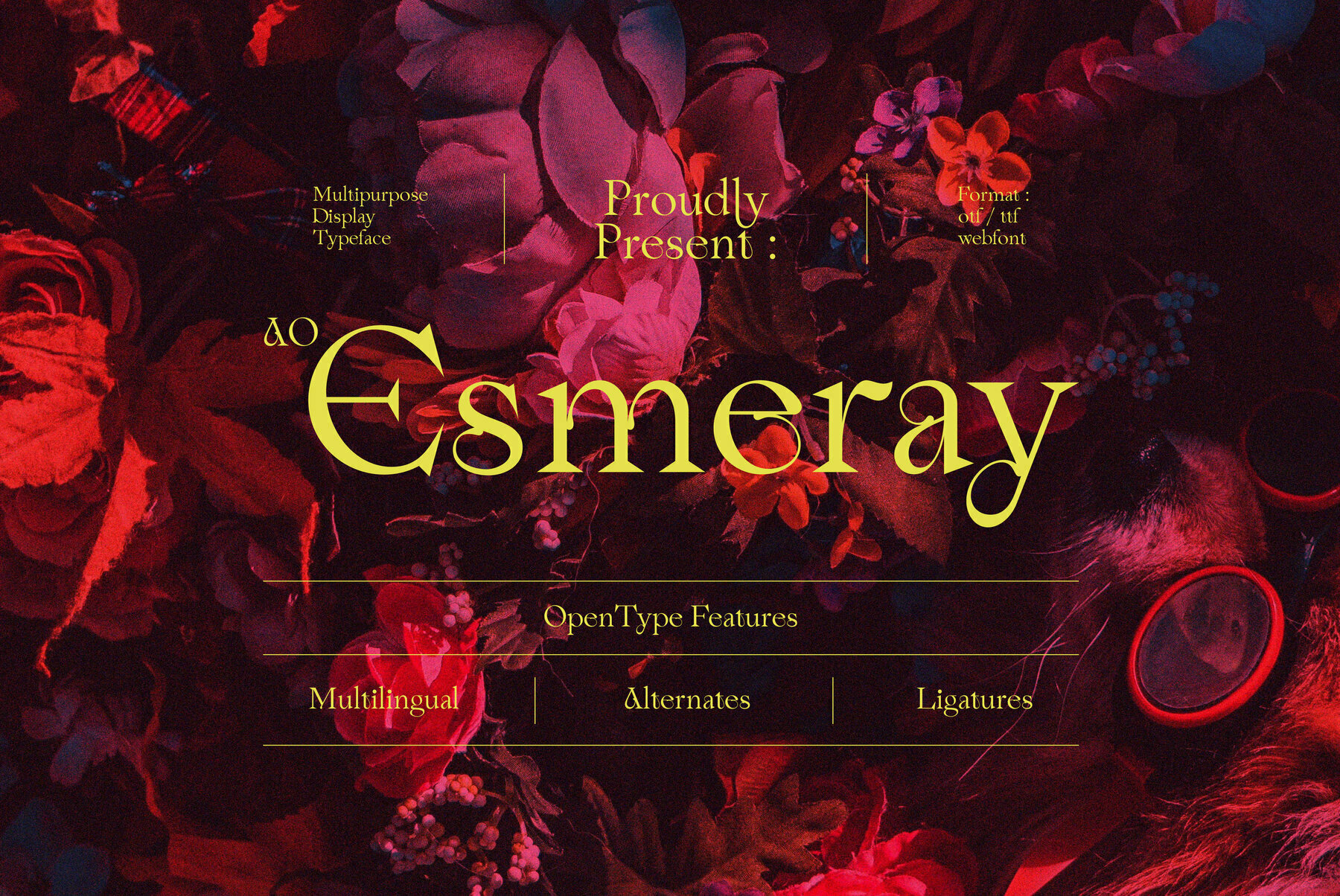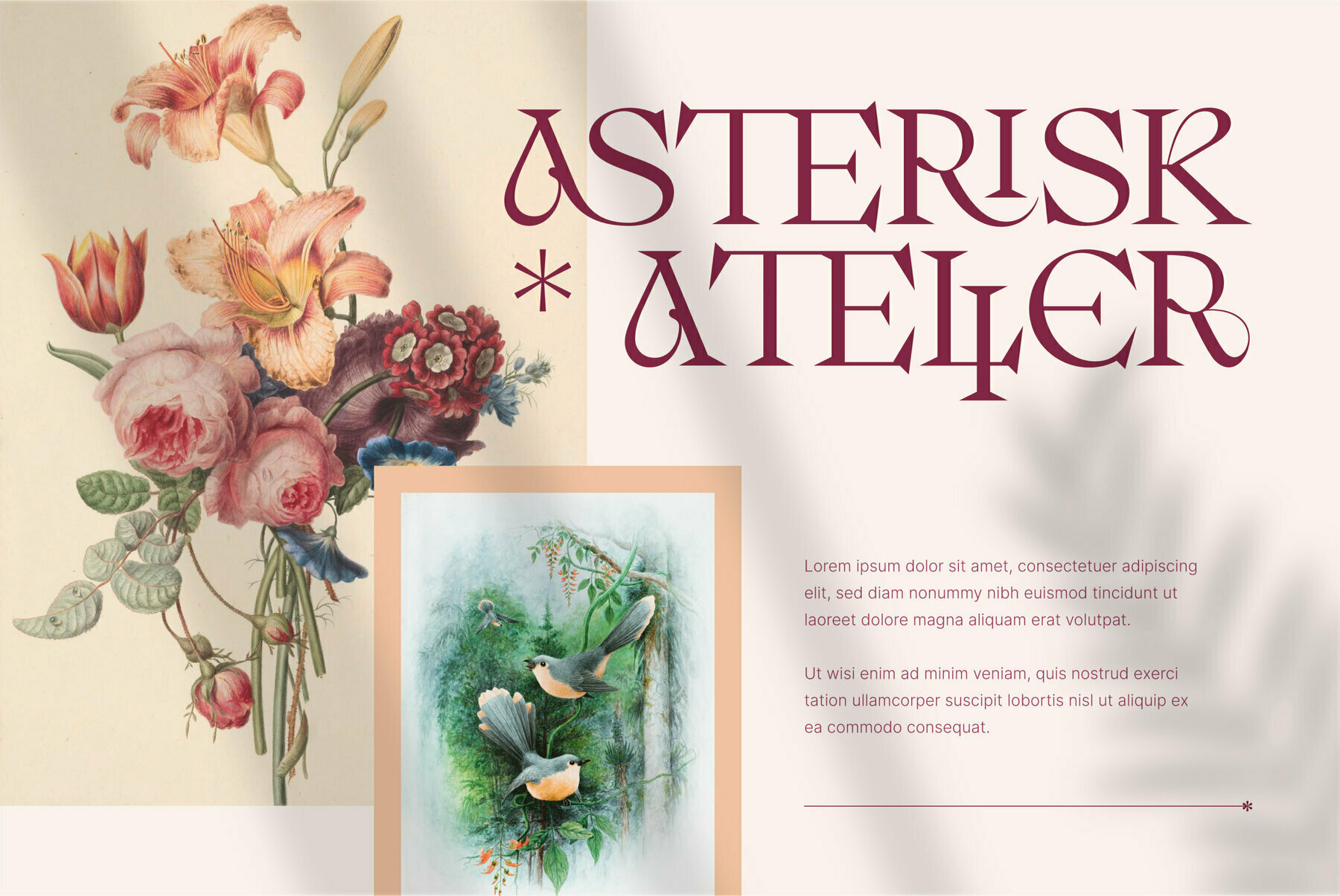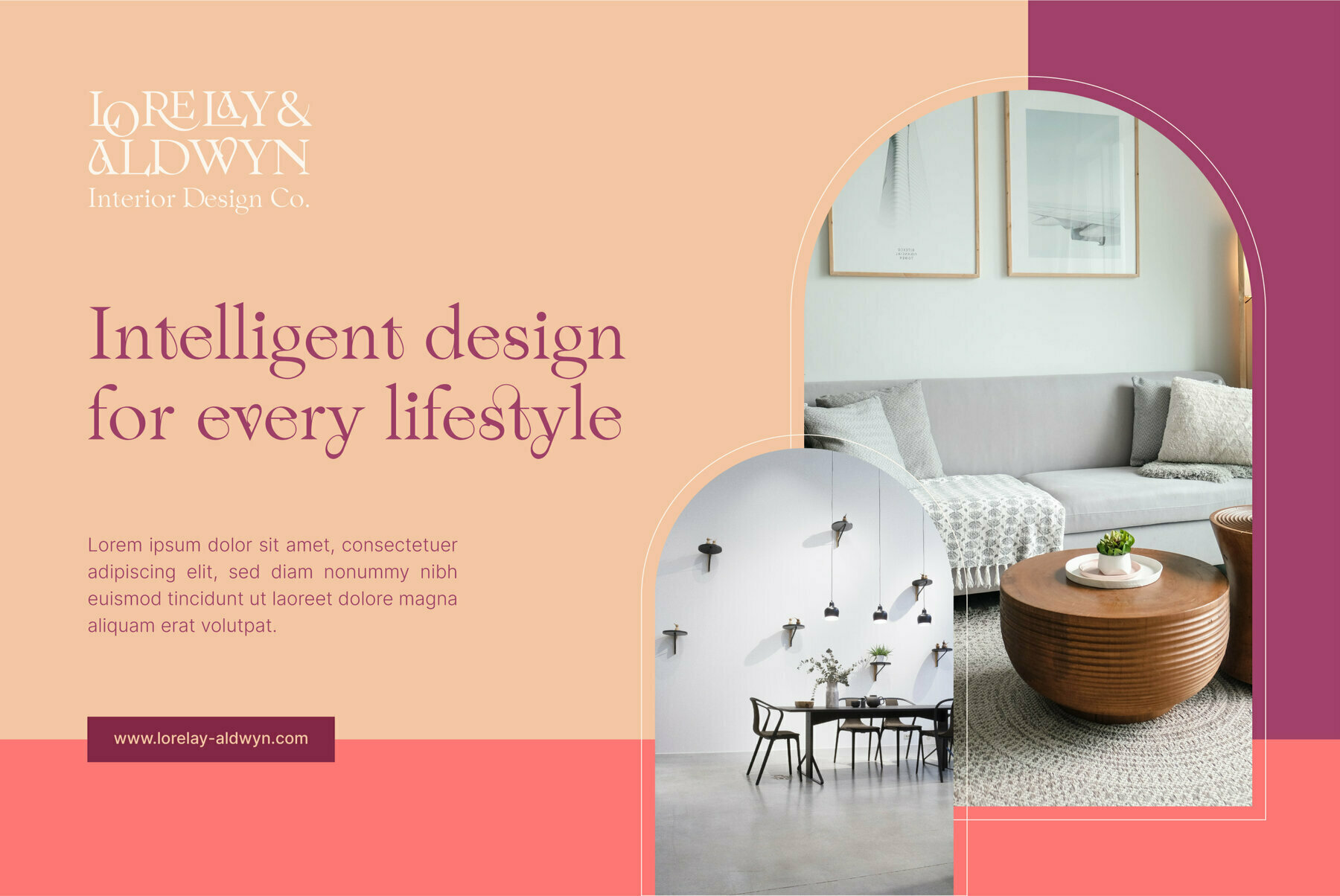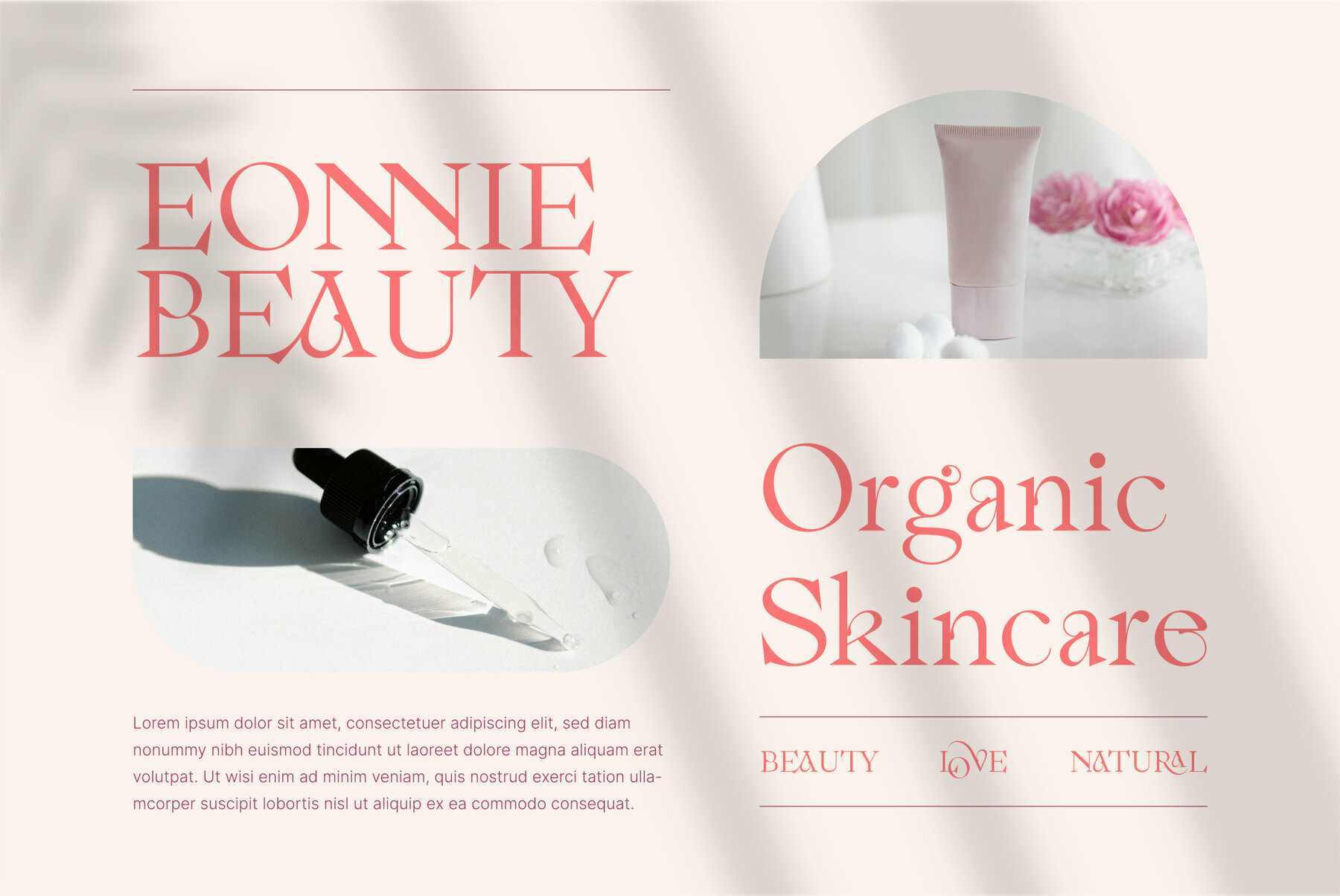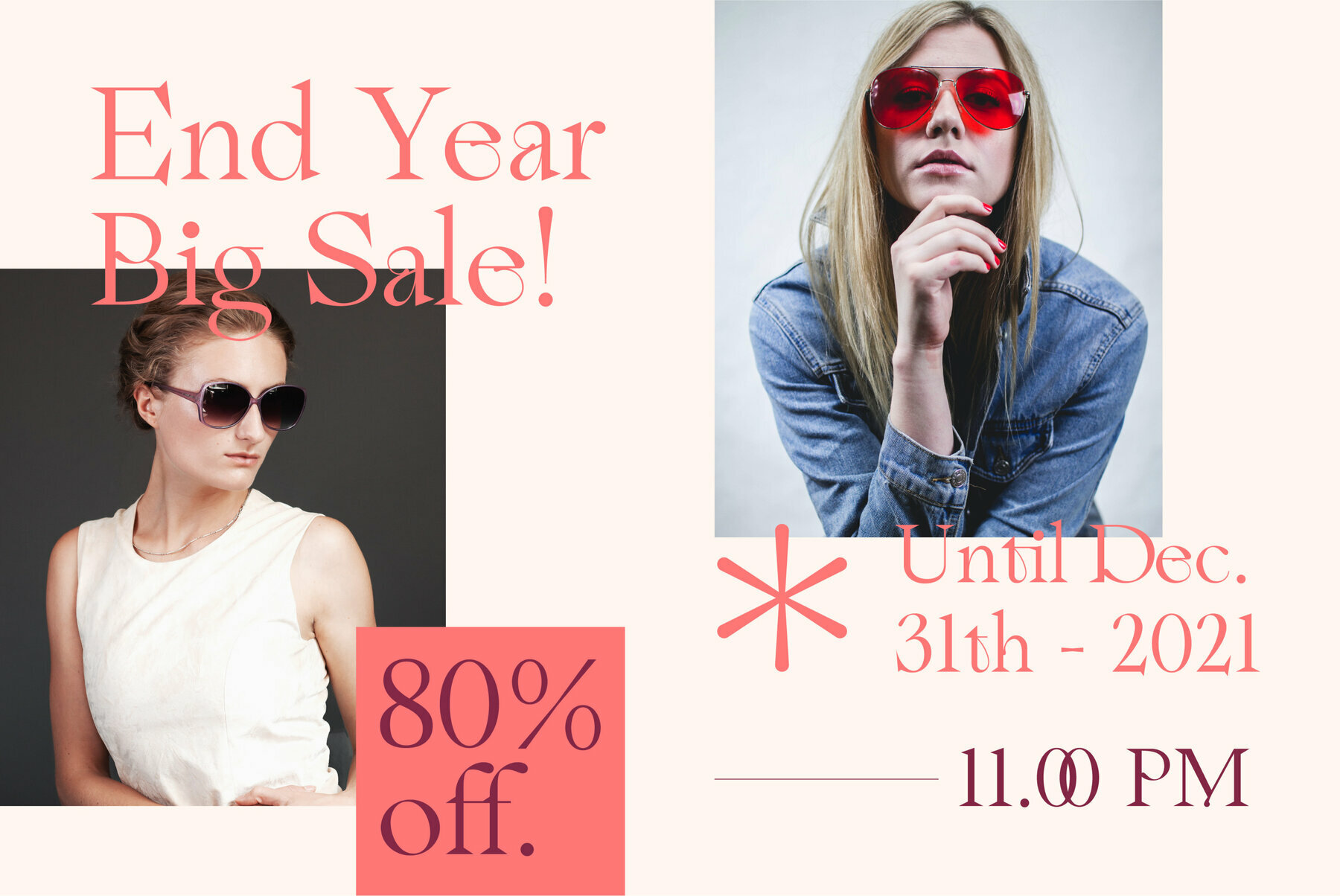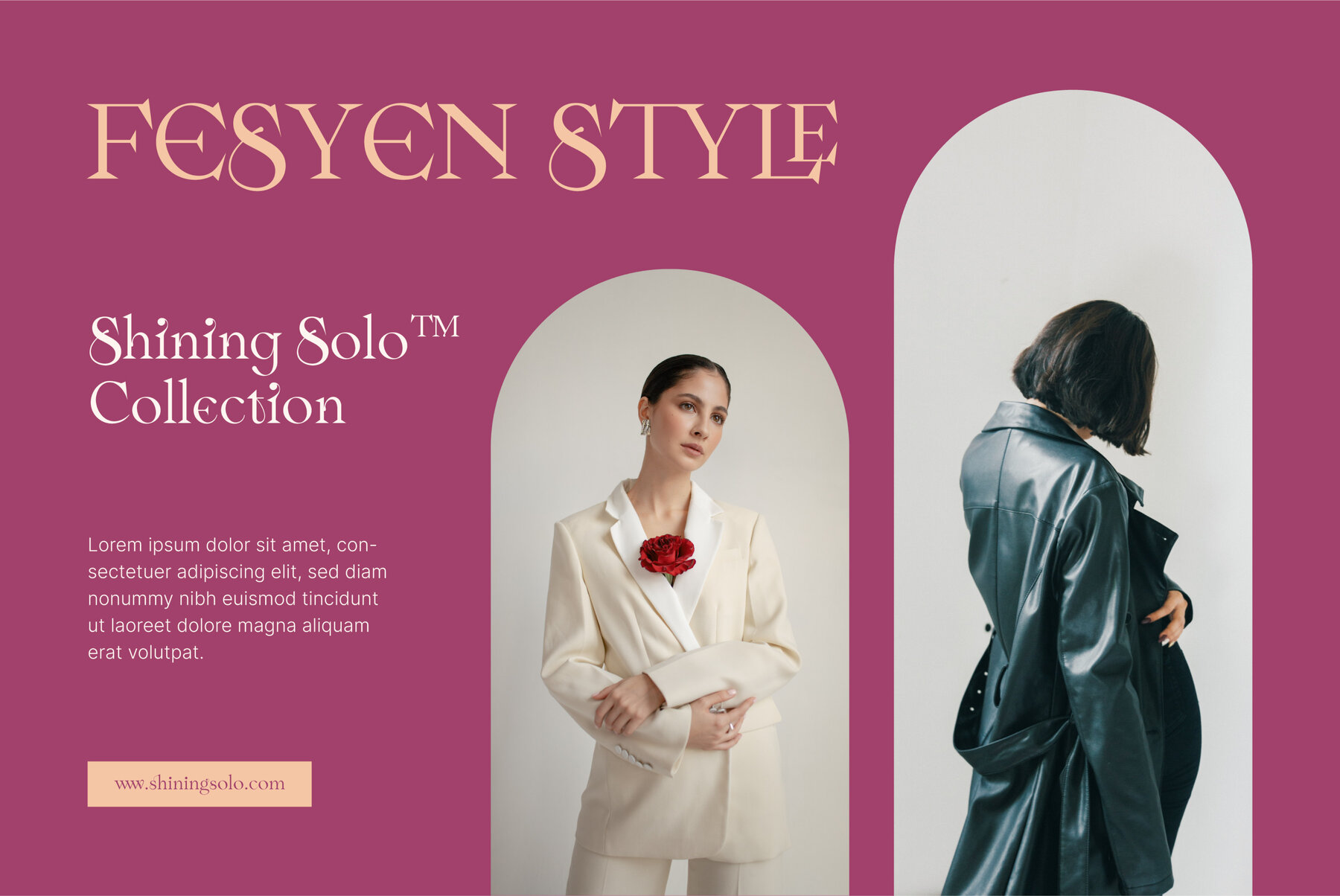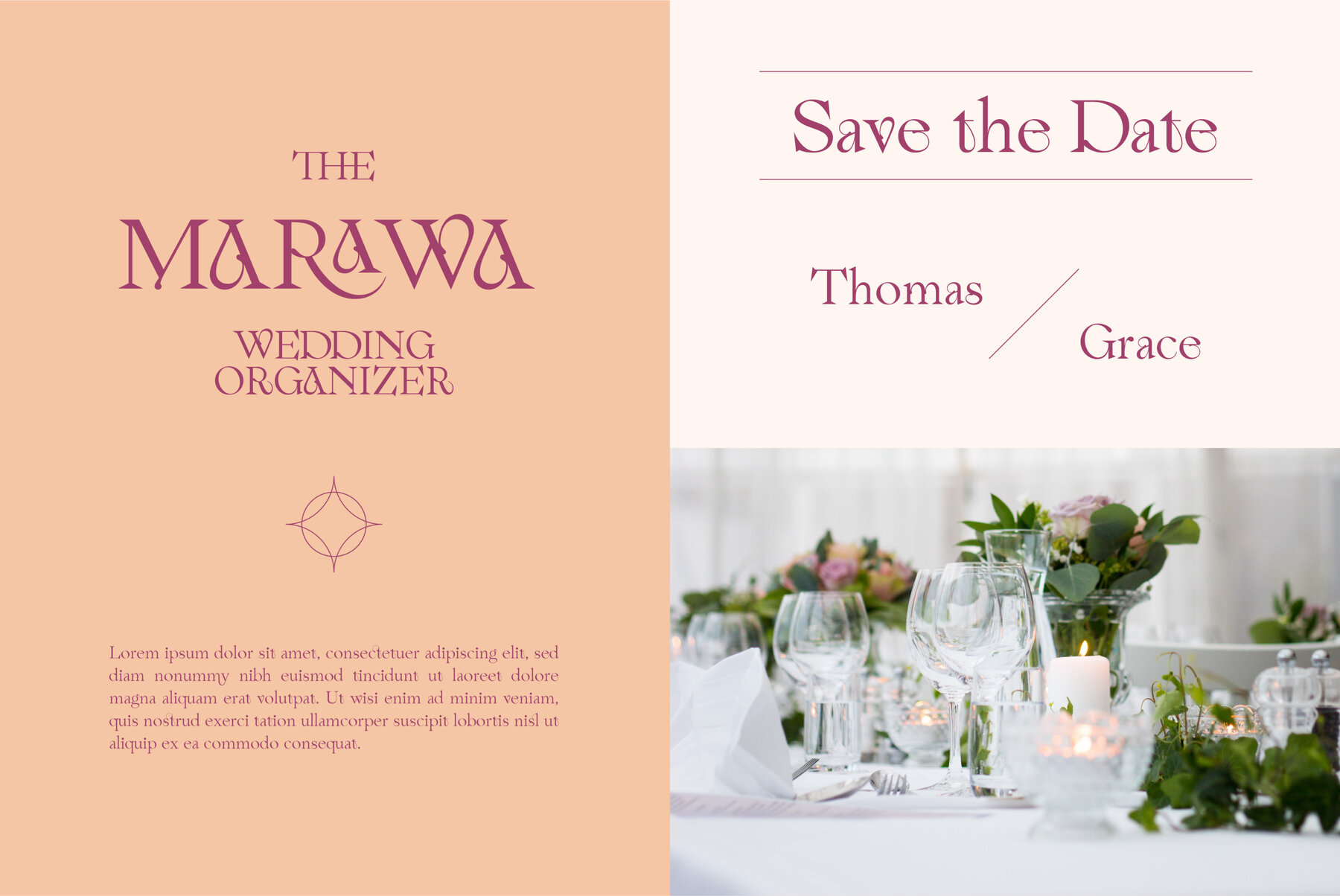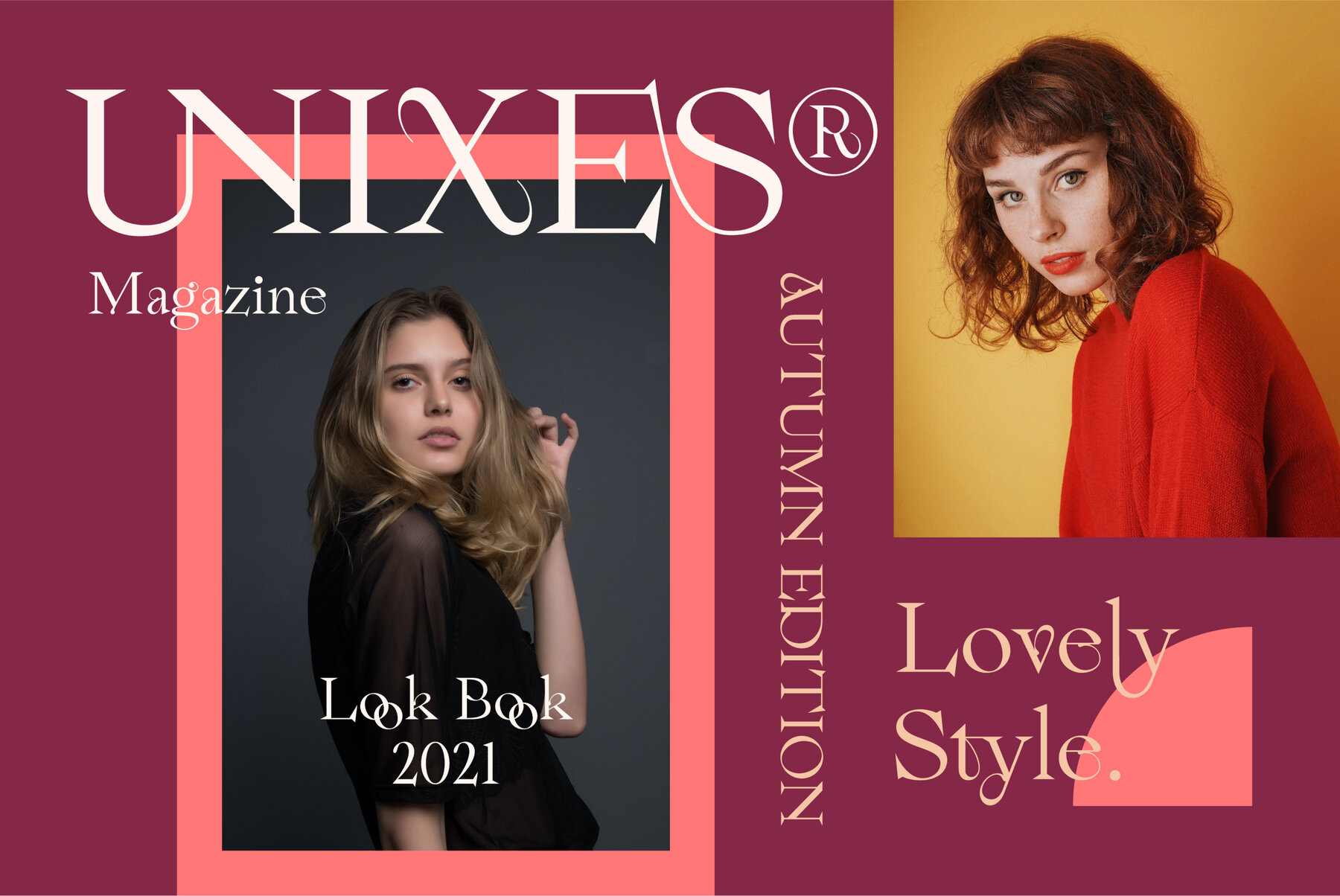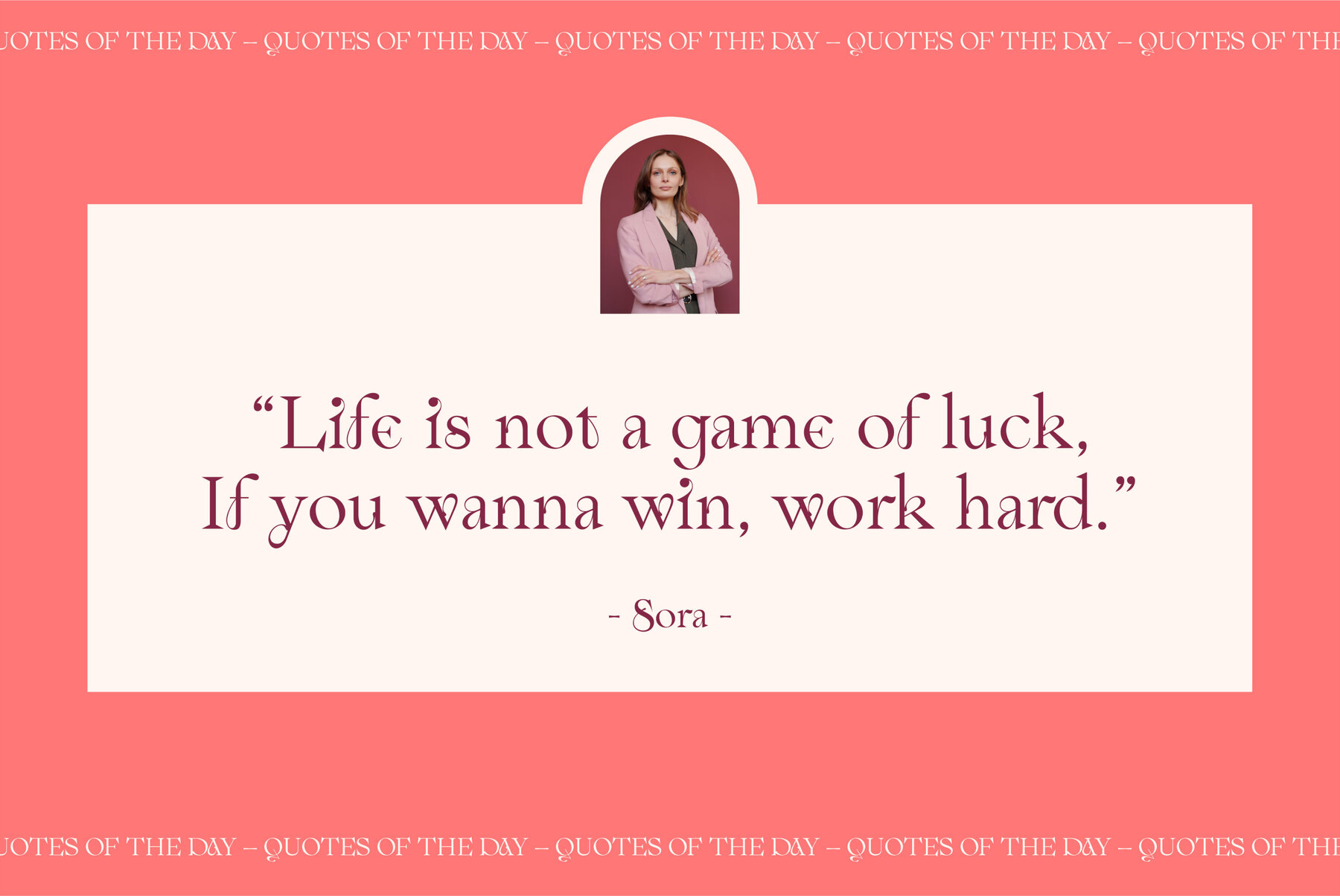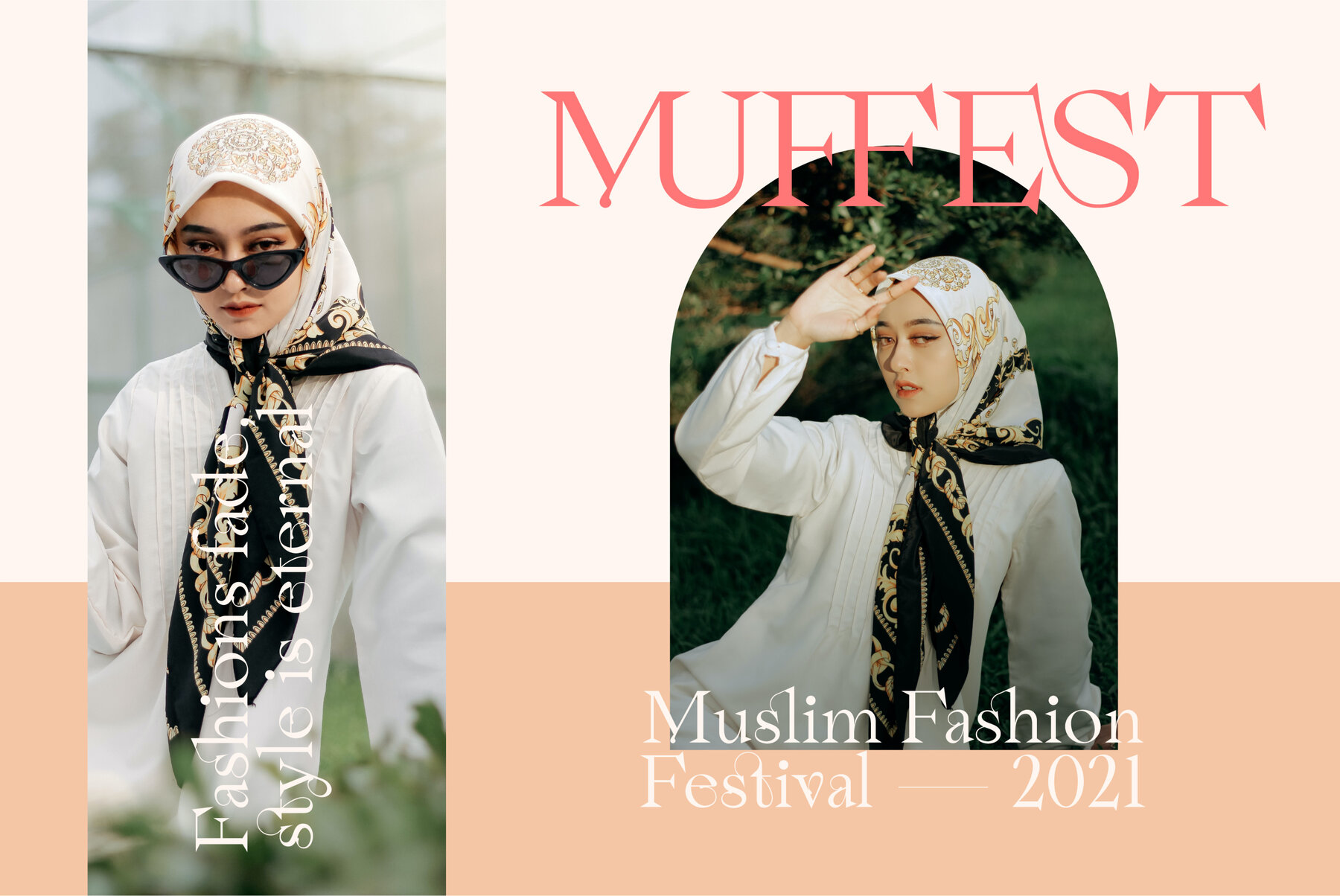
AO Esmeray Font
AO Esmeray Regular
AO Esmeray is a sophisticated display font that encapsulates modern elegance and class. Its design, enriched with a multitude of stylish ligatures and alternates, is crafted to draw attention and add a distinctive flair to any project. The font exudes a refined weight, making it an excellent choice for designers aiming to create visually striking materials.AO Esmeray: Modern Display Font with Stylish Ligatures